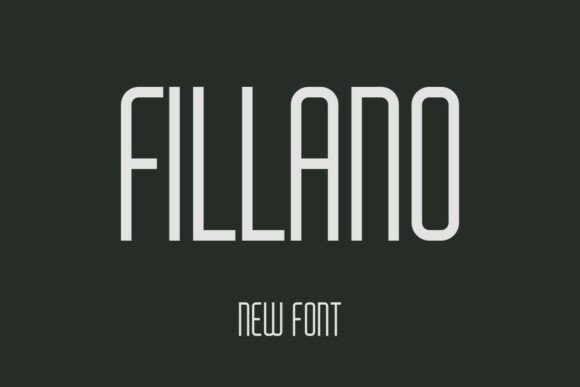
The Perfect Balance of Futurism and Elegance: Unveiling the Fillano Font
As designers, we’ve all been there – staring at a blank canvas, trying to conjure up the perfect font to capture the essence of our creative vision. It’s that moment when the perfect typeface can make all the difference, elevating our design from mere aesthetics to a true masterpiece.
Enter the Fillano Font, a sleek, elongated sans-serif typeface that embodies the perfect balance of futurism and elegance. Designed to command attention, this modern and minimalist font is perfect for headlines, tech branding, and editorial layouts. Its geometric precision and timeless impact make it a valuable asset for designers seeking to create truly unforgettable designs. By incorporating the Fillano Font into your next project, you’ll be able to tap into its unique blend of style and sophistication.
Fillano Font Key Features
- Unique Characteristics: The Fillano Font features a unique, modern design with a blend of geometric and organic elements, giving it a distinctive look that sets it apart from other fonts.
Fillano Font Review
Overall, I have mixed feelings about the Fillano Font. While it’s a decent addition to any design project, it’s not without its flaws. Let’s break it down.
- ✨ The Fillano Font has a clean and modern design that works well for digital interfaces and online platforms.
- ✨ The font is highly legible, even at smaller font sizes, making it suitable for body text and headings.
- ✨ Fillano Font supports a wide range of languages, including Latin, Cyrillic, and Greek scripts.
- ⚠️ The Fillano Font lacks a strong personality, making it hard to stand out in a crowded design landscape.
- ⚠️ The font’s x-height is slightly inconsistent, which can affect readability in certain situations.
- ⚠️ Fillano Font doesn’t have a bold weight, which can limit its use in headings and titles.
Overall, I think the Fillano Font is a solid choice for designers who need a clean and legible font. However, it’s not the most exciting or unique option out there. If you’re looking for a font that makes a statement, you might want to consider something else. But for everyday use, Fillano Font gets the job done.
Tips for Getting the Most Out of Fillano Font
For the best results, use Fillano Font in combination with a clean and minimalist design aesthetic. Experiment with different font sizes and styles to create visual interest.
Use Fillano Font for headings and titles to create a strong visual identity. For body text, consider pairing Fillano Font with a secondary font for added readability.
Fillano Font is ideal for:
Brand identities and logos
Marketing materials and brochures
Website headers and footers
Infographics and data
Alternatives to Fillano Font